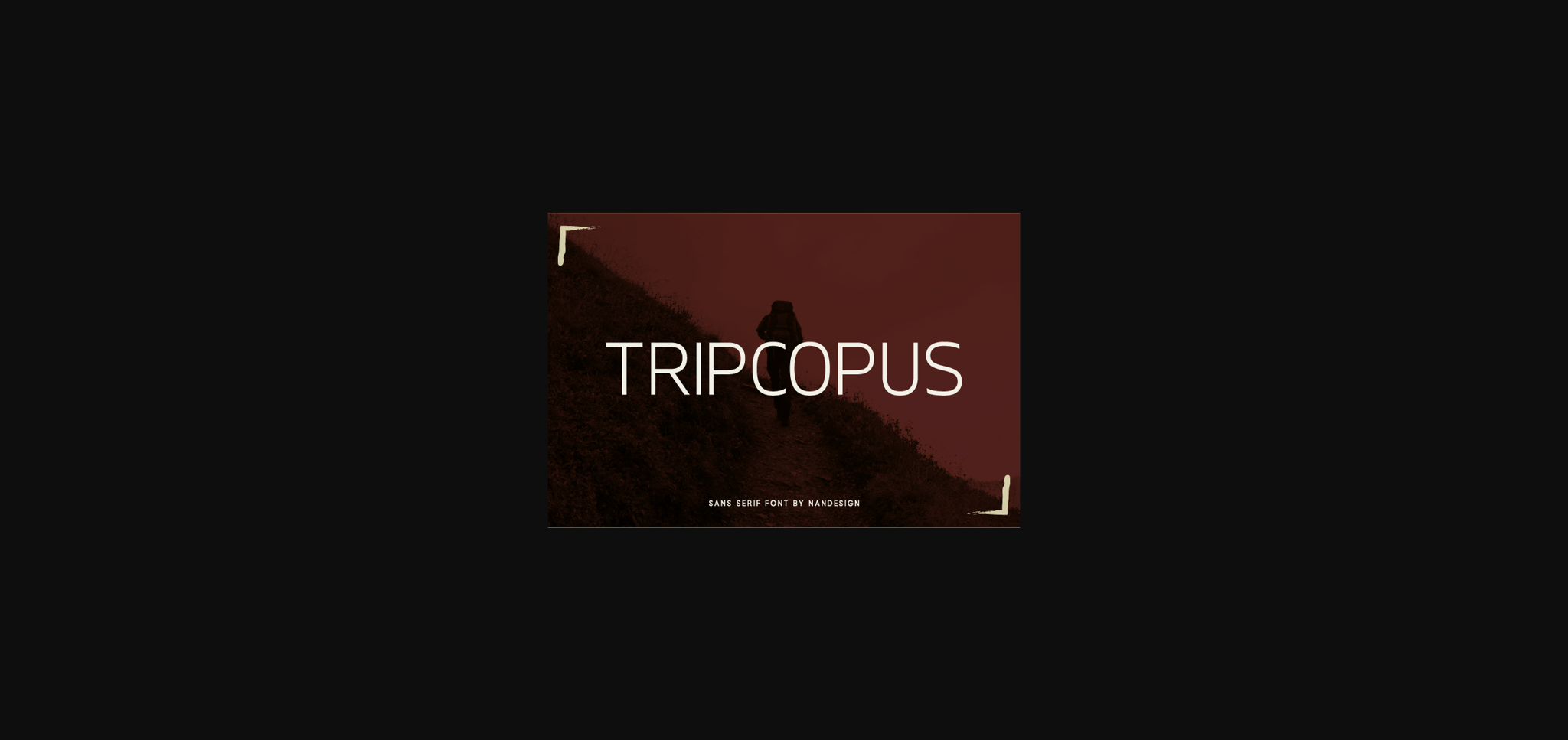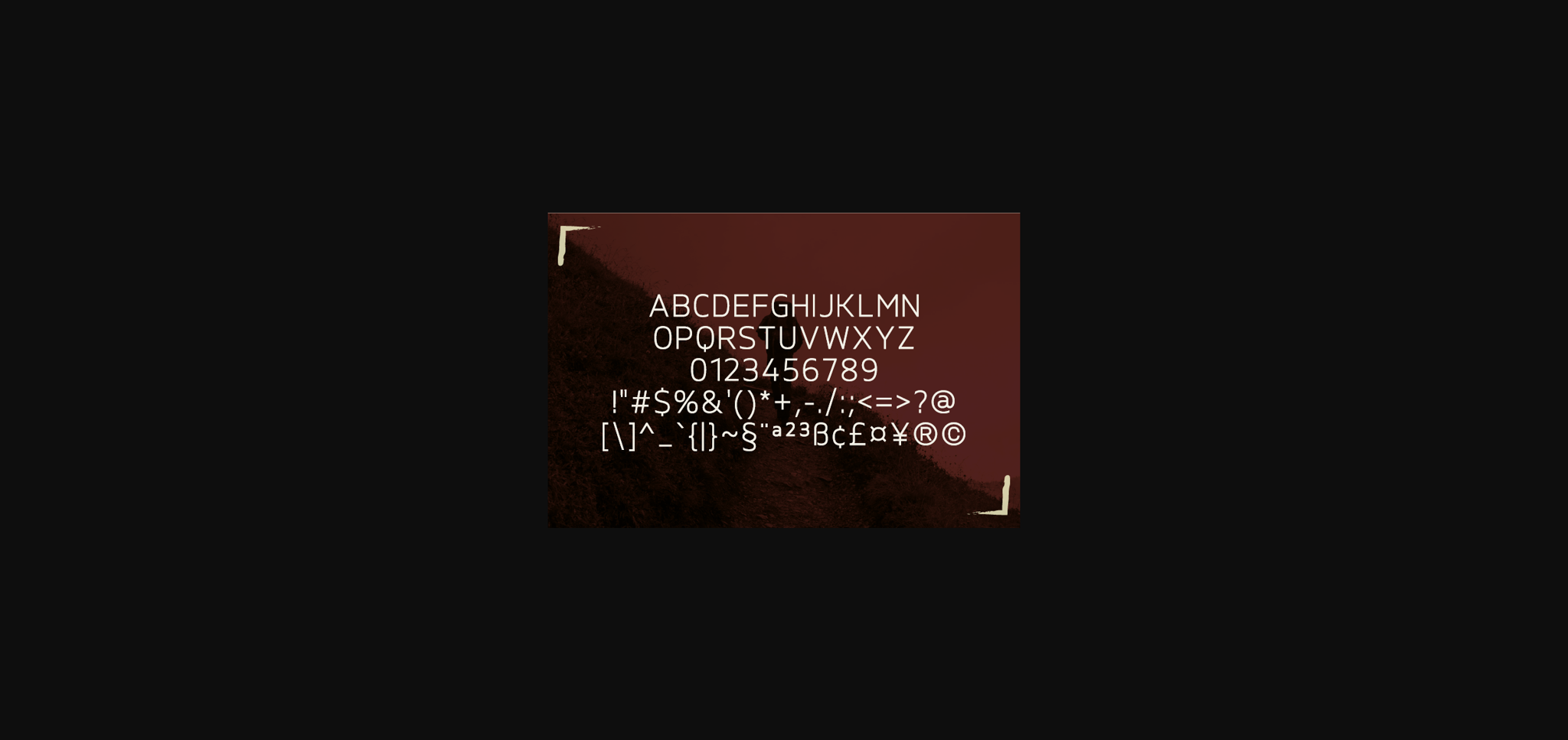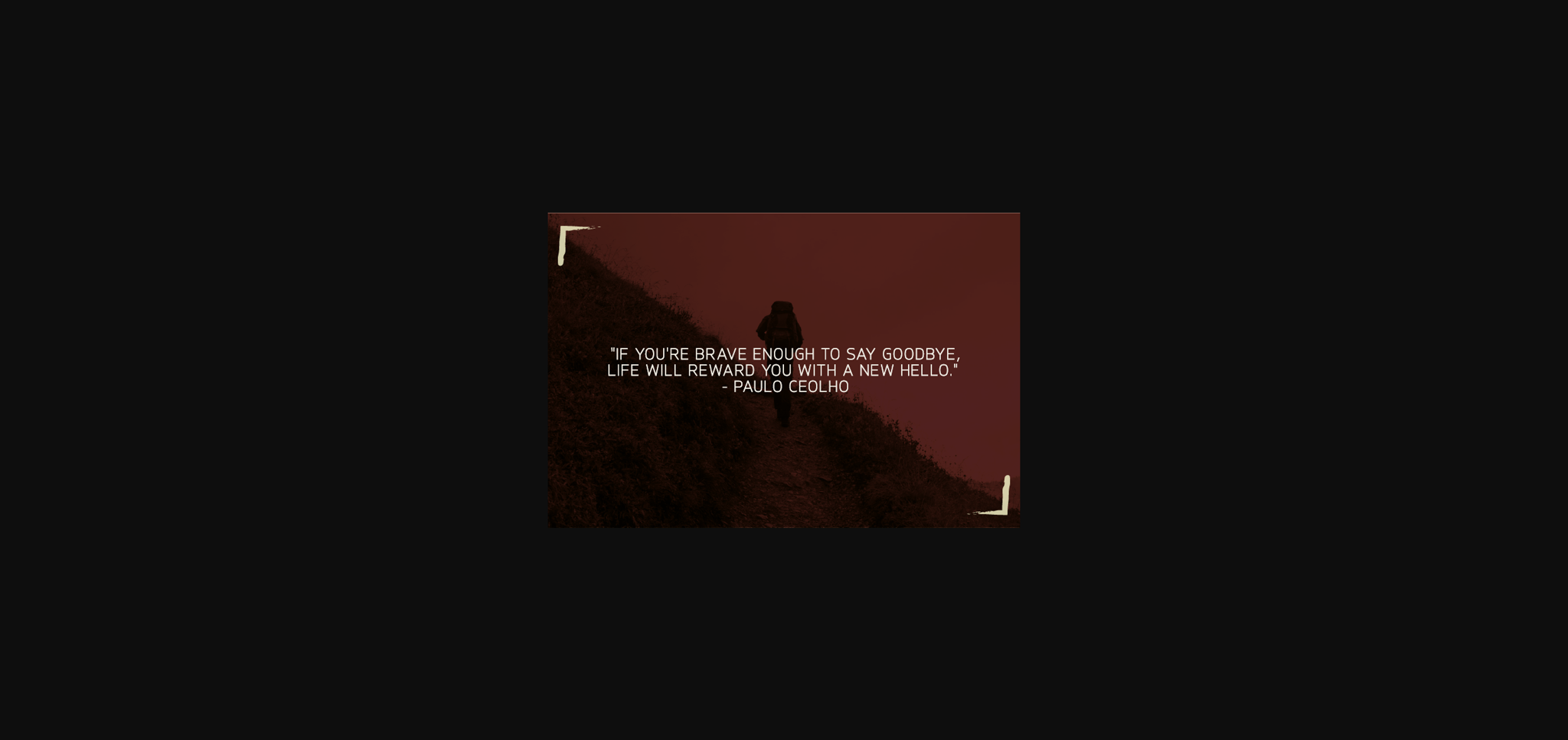
About Tripcopus Font
Tripcopus is a friendly sans serif font. It will complement any design need perfectly with its perfectly balanced mix of the smooth and sharp! It is perfect for displays, headers, invitations, wedding invitations and so much more!